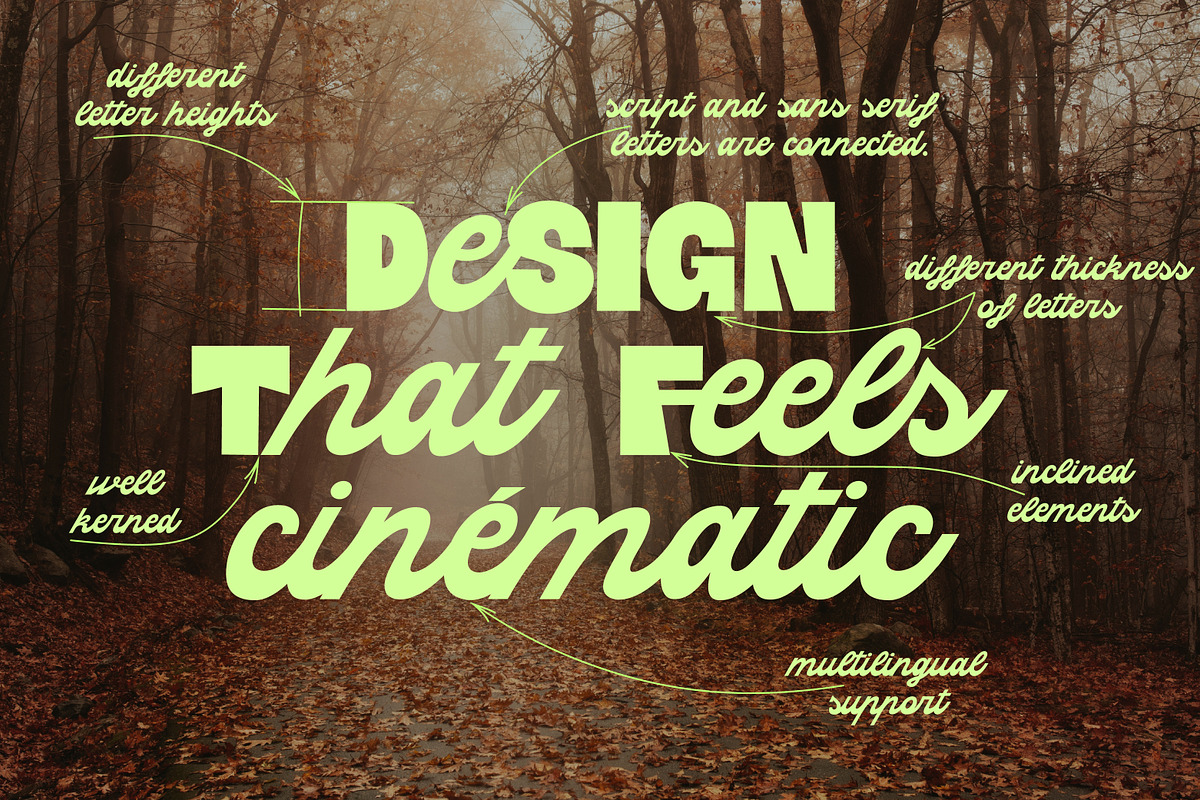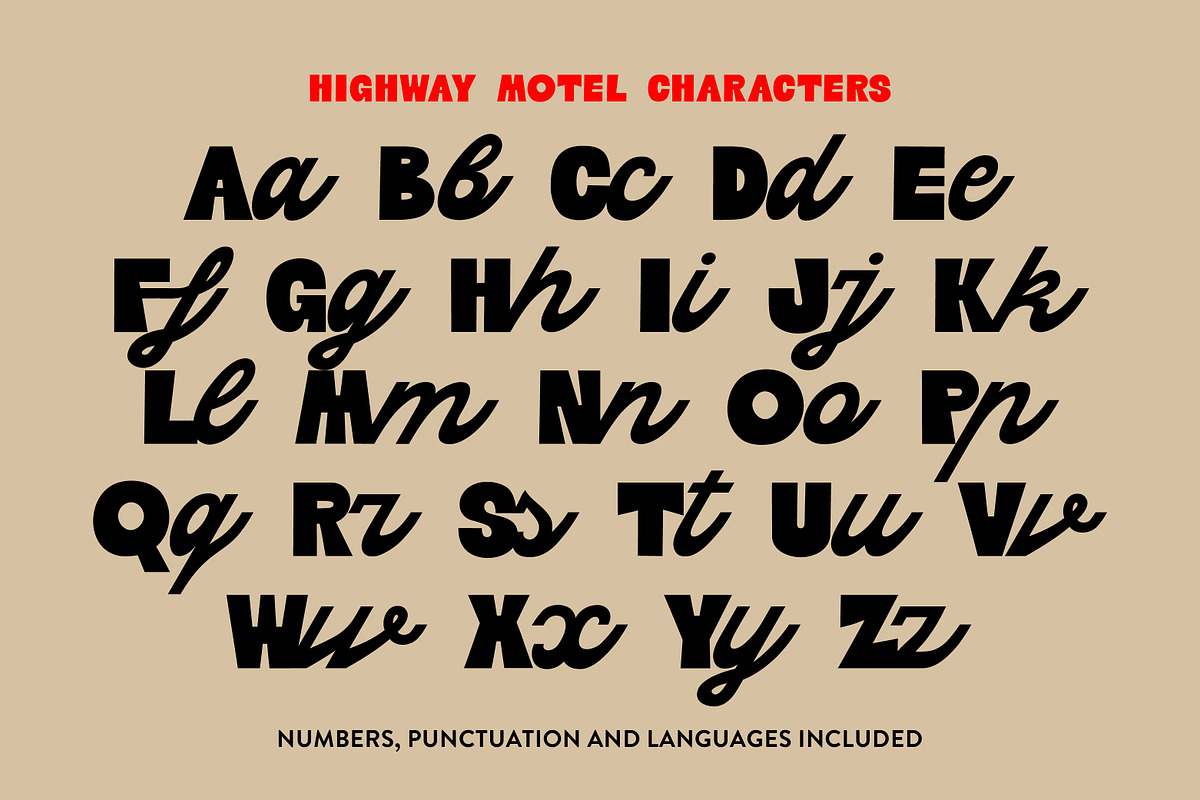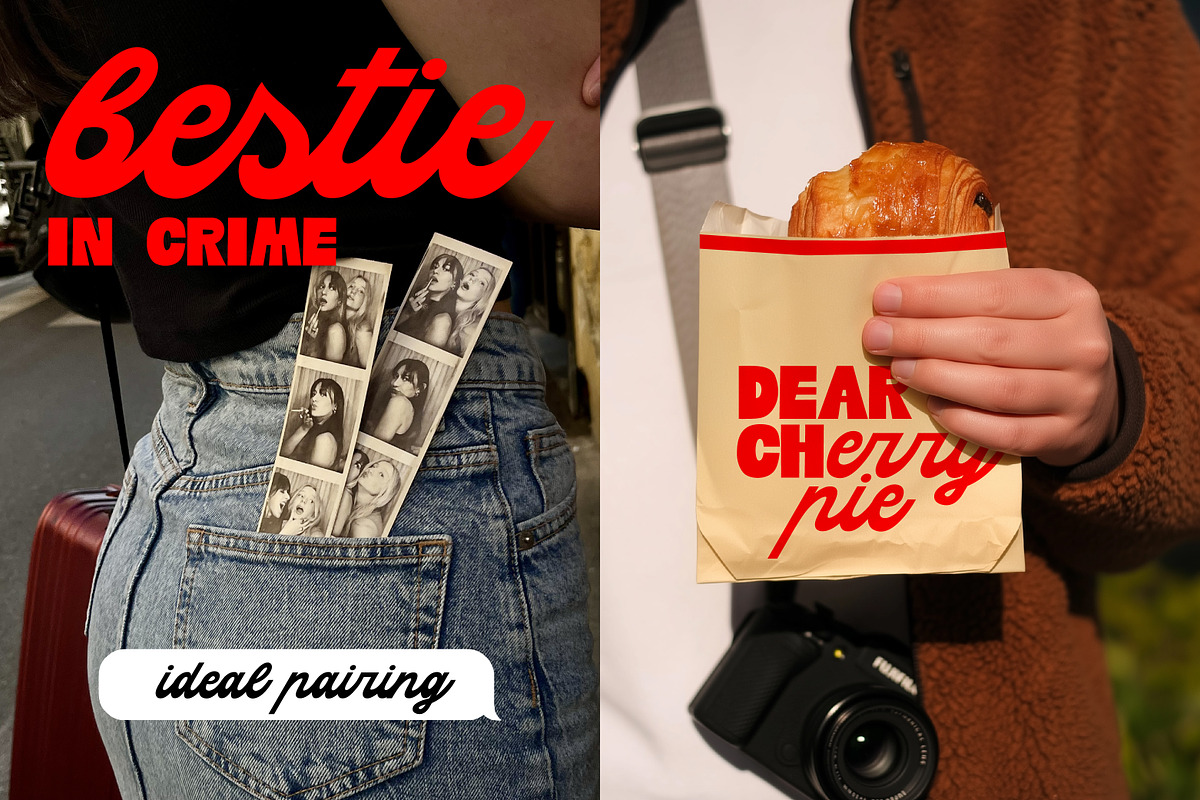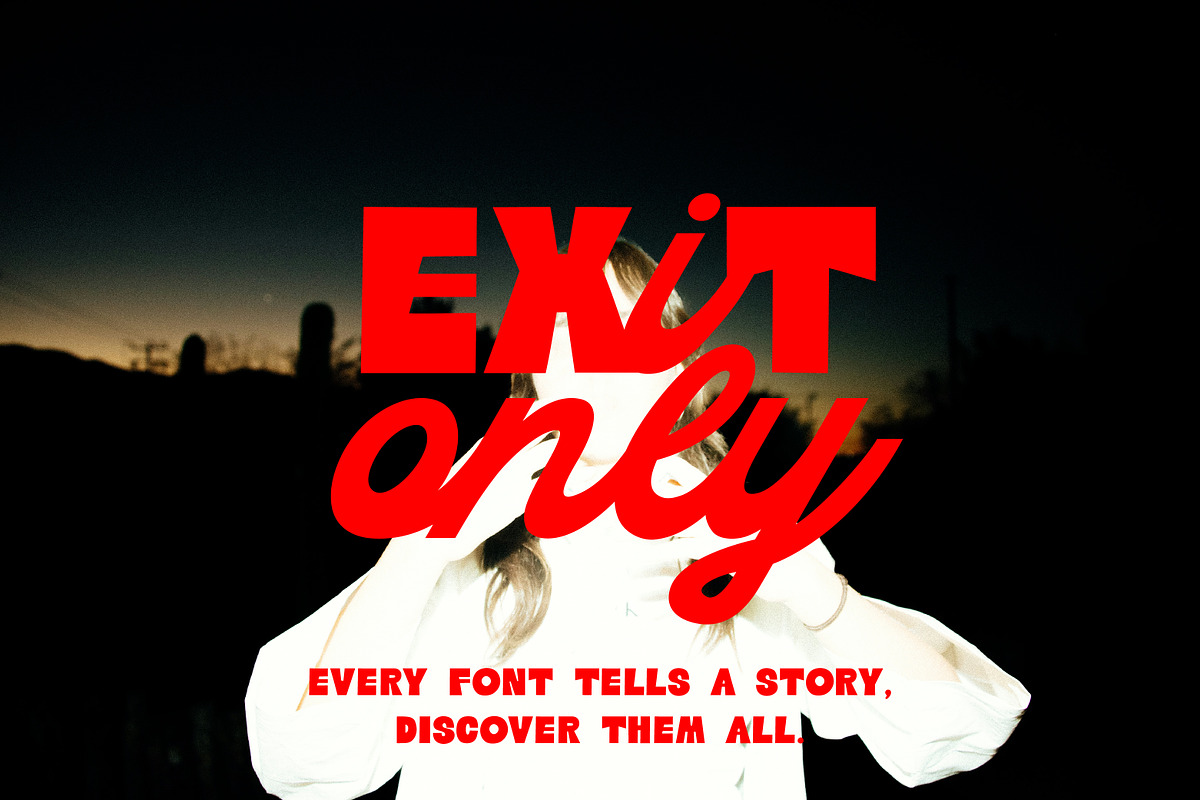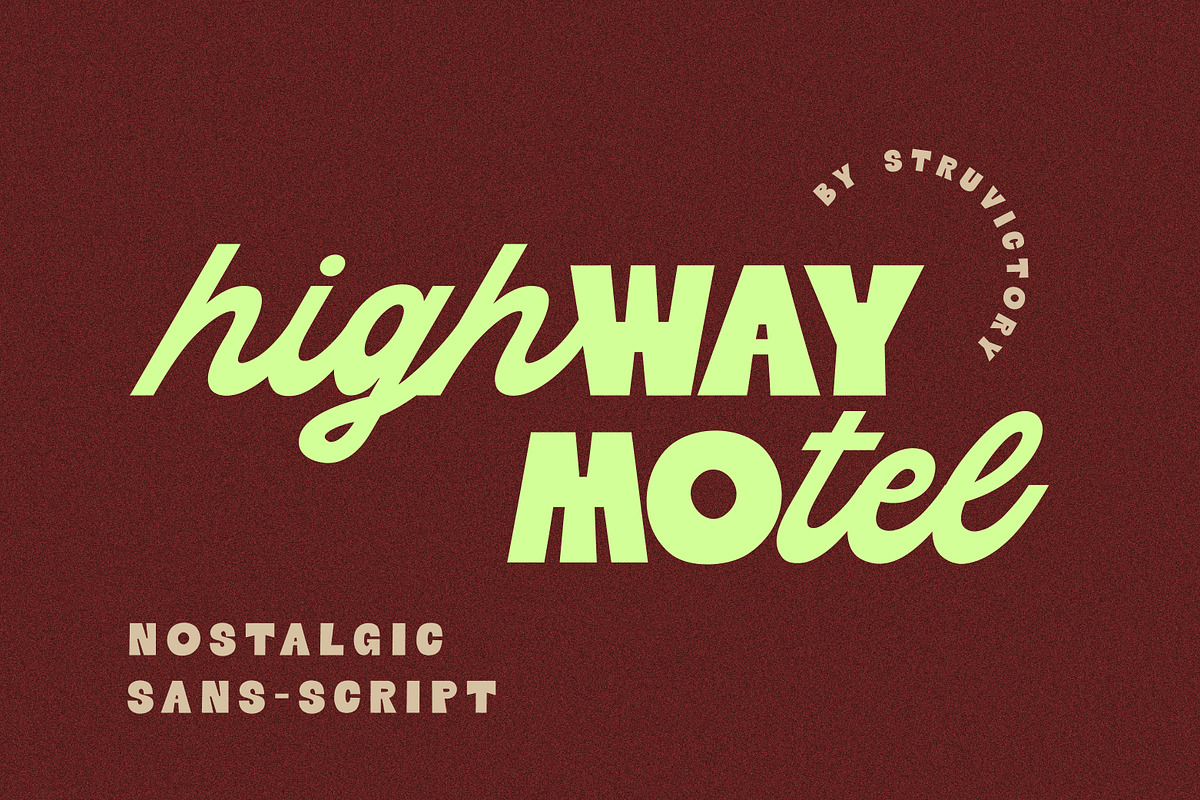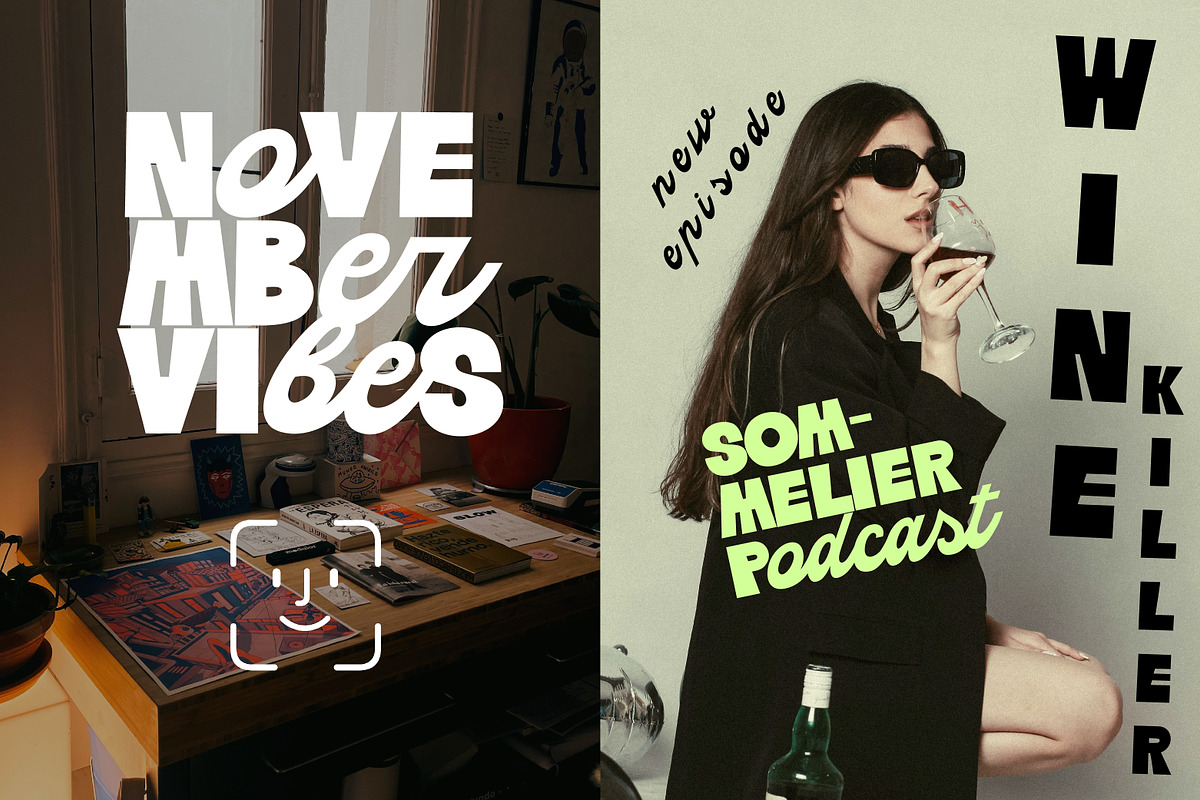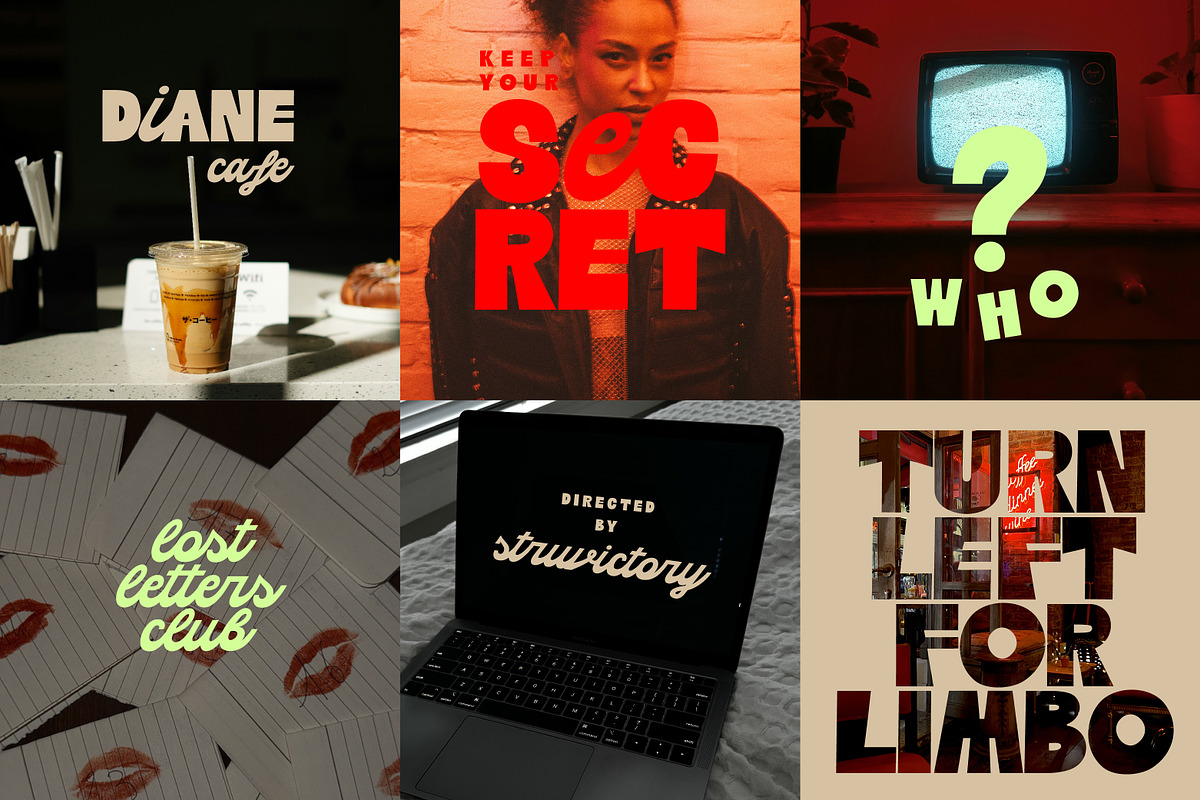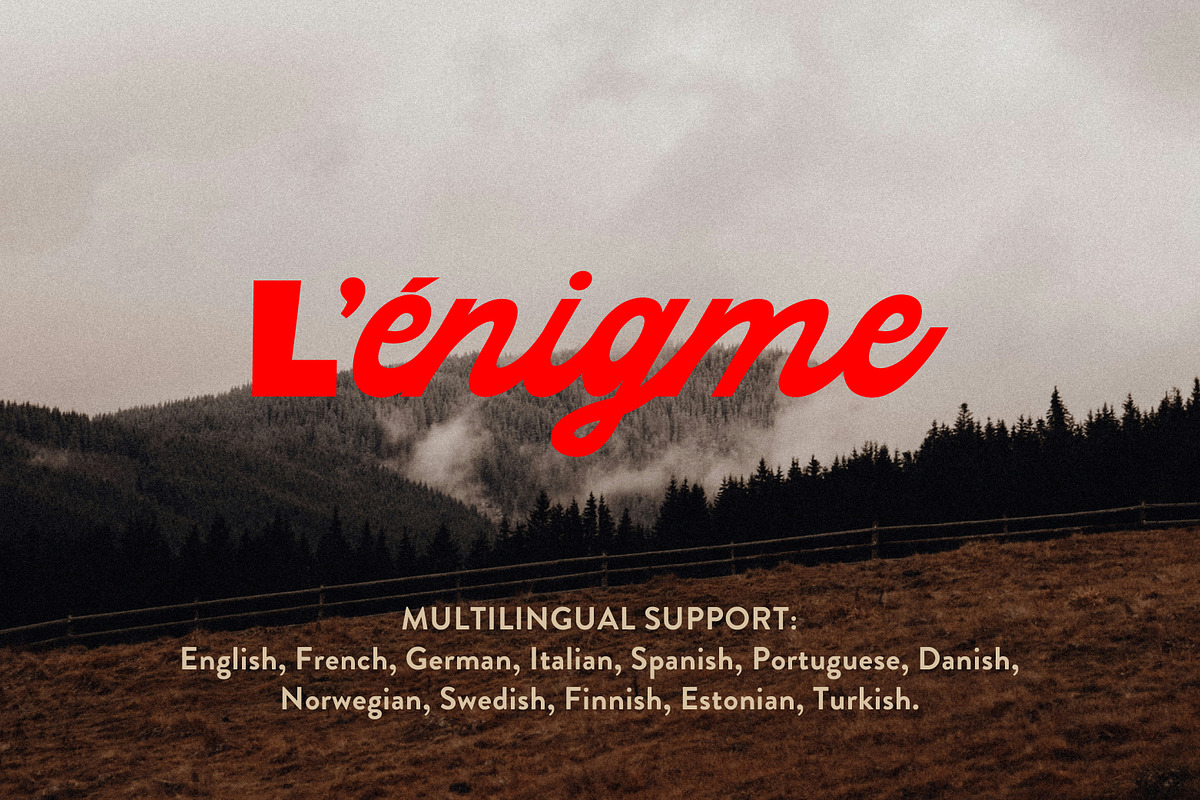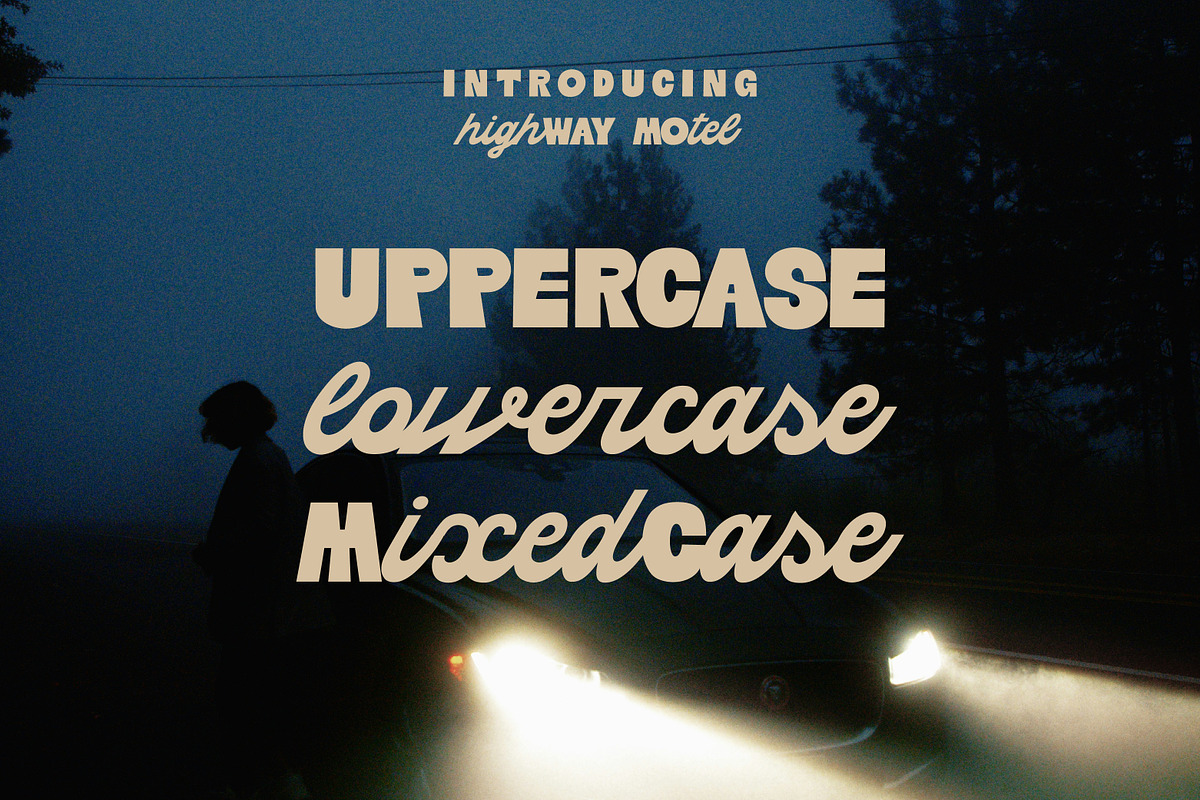
Highway Motel Retro Vibe Sans Script
Highway Motel is an experimental sans–script font that feels like a scene from a late-night movie — nostalgic, cinematic, and effortlessly cool. Its uppercase features a bold geometric sans with confident retro curves, while the lowercase flows in a smooth connected script for a touch of motion and character. Together they create a dynamic contrast that feels both vintage and modern. Perfect for branding, posters, magazines, or social media where you want to capture that timeless highway aesthetic — somewhere between dreams, neon lights, and late-night coffee.